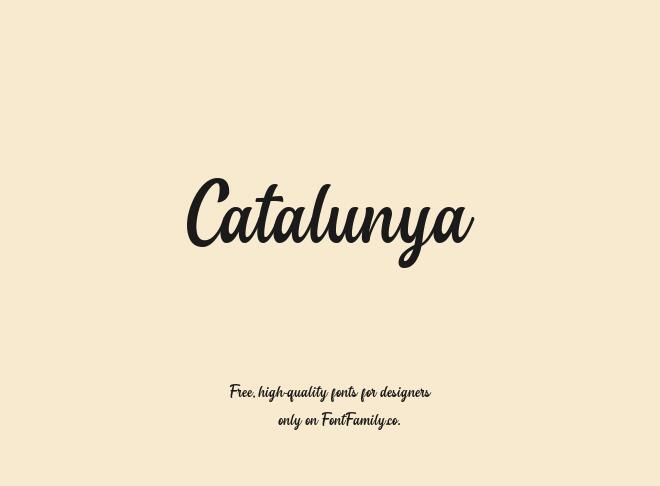
Catalunya Font
Catalunya Font is a unique handwritten script font with a retro twist. Inspired by the vibrant culture of Catalonia, it embodies a free-spirited, artistic vibe that stands out in any design project. Its versatile design is perfect for logos, branding, wedding invitations, or any project that requires a personal touch. It's comparable to fonts like 'Brush Script' but offers a more distinctive, handcrafted feel. The Catalunya Font is a fantastic choice for designers looking for a blend of vintage and modern styles. By using Catalunya Font, you can add a touch of authenticity and charm to your designs. It's not just a font; it's a tool that can bring your creative visions to life.